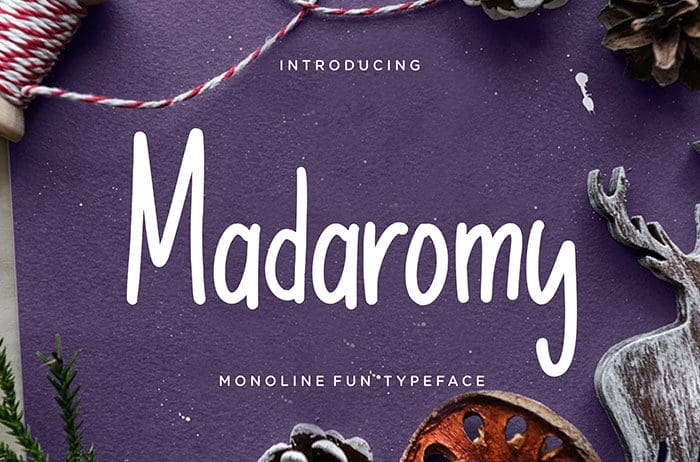
Madaromy Display Font
Madaromy is a fun Display Font with a happy touch. Perfect for branding projects, logo, invitation, social media posts, and many more. Thanks to Creatype Studio for sharing this font! Take a look at this portfolio for more of his stunning fonts.